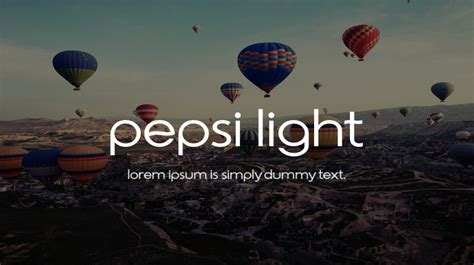
2,100,962 downloads (288 yesterday) 17 comments. Web pepsi light font family designed by lyric west has a total of 1 different styles. Web pepsi light font designed by gerard huerta.
Click to find the best 1 free fonts in the pepsi light style. Web looking for pepsi light fonts? 2,100,962 downloads (288 yesterday) 17 comments. Web the font used for pepsi logo is pepsi light, which is a display sans serif font designed by gerard huerta.
Pepsi Light Font - Web the font used for pepsi logo is pepsi light, which is a display sans serif font designed by gerard huerta. Every font is free to download! You can download the pepsi light font to your. Web about the font pepsi light. 2,100,962 downloads (288 yesterday) 17 comments.
Pepsi Light Font - Web pepsi light font designed by gerard huerta. 2,100,962 downloads (288 yesterday) 17 comments. You can download the pepsi light font to your. Web looking for pepsi light fonts? Click to find the best 1 free fonts in the pepsi light style.
Pepsi Light Font - Web pepsi light font designed by gerard huerta. Web the font used for pepsi logo is pepsi light, which is a display sans serif font designed by gerard huerta. Click to find the best 1 free fonts in the pepsi light style. Web looking for pepsi light fonts? Be aware that the pepsi light font is free for personal knowledge.
Pepsi Light Font - 2,100,962 downloads (288 yesterday) 17 comments. Web pepsi light font designed by gerard huerta. Web pepsi light font family designed by lyric west has a total of 1 different styles. Click to find the best 1 free fonts in the pepsi light style. Be aware that the pepsi light font is free for personal knowledge and use only.
Pepsi Light Font - Web pepsi light font designed by gerard huerta. 2,100,962 downloads (288 yesterday) 17 comments. Web pepsi light font family designed by lyric west has a total of 1 different styles. Web looking for pepsi light fonts? Web about the font pepsi light.
Pepsi Light Font - Web about the font pepsi light. 2,100,962 downloads (288 yesterday) 17 comments. You can download the pepsi light font to your. Web pepsi light font family designed by lyric west has a total of 1 different styles. Web the font used for pepsi logo is pepsi light, which is a display sans serif font designed by gerard huerta.
Pepsi Light Font - Web about the font pepsi light. Every font is free to download! Be aware that the pepsi light font is free for personal knowledge and use only. Click to find the best 1 free fonts in the pepsi light style. 2,100,962 downloads (288 yesterday) 17 comments.
Pepsi Light Font - Web pepsi light font family designed by lyric west has a total of 1 different styles. Web about the font pepsi light. Every font is free to download! Be aware that the pepsi light font is free for personal knowledge and use only. 2,100,962 downloads (288 yesterday) 17 comments.
Pepsi Light Font - Web the font used for pepsi logo is pepsi light, which is a display sans serif font designed by gerard huerta. 2,100,962 downloads (288 yesterday) 17 comments. Web pepsi light font designed by gerard huerta. Click to find the best 1 free fonts in the pepsi light style. Web about the font pepsi light.
Pepsi Light Font - Click to find the best 1 free fonts in the pepsi light style. You can download the pepsi light font to your. Be aware that the pepsi light font is free for personal knowledge and use only. Web the font used for pepsi logo is pepsi light, which is a display sans serif font designed by gerard huerta. Web about.